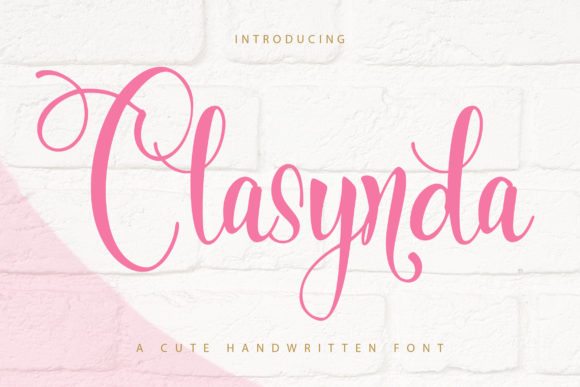
About Clasynda Font
Clasynda is a sweet, all round and flexible handwritten font. Warm, romantic and jolly, this font will turn each of your project ideas into real works of art. Have fun with this beautiful font and explore its endless variations.